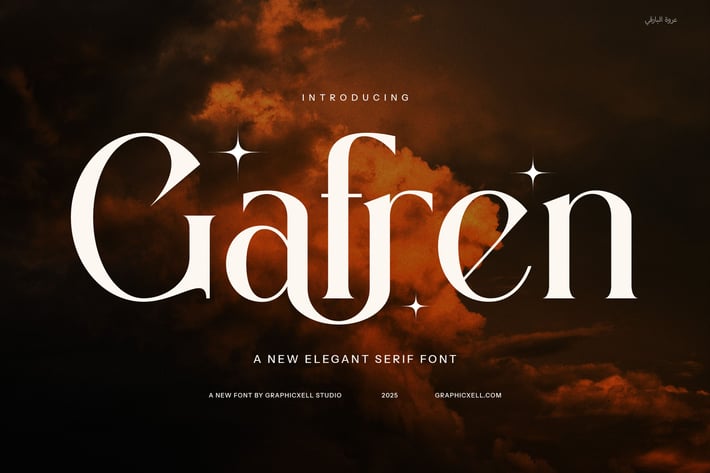
Gafren Elegant Serif Font
Gafren Elegant Serif Font is a sophisticated and modern typeface that combines timeless beauty with contemporary refinement. Designed with precision, this font boasts exquisite ligatures and unique alternate characters, allowing for endless creative possibilities. Its graceful curves and balanced proportions bring a touch of luxury to any design, making it an ideal choice for high-end branding, editorial layouts, and stylish digital or print projects.
Crafted for elegance and versatility, Gafren is perfect for logos, fashion labels, boutique packaging, and premium advertisements. The carefully designed letterforms offer a seamless blend of classic sophistication and modern aesthetics, making your typography stand out with effortless charm. Whether you’re designing a refined website header, an upscale magazine spread, or a captivating product label, Gafren delivers a polished and professional look.
The striking contrast between bold strokes and delicate serifs enhances readability while adding a sense of exclusivity. Its alternate characters and ligatures provide designers with creative freedom, allowing for custom typography that feels both unique and stylish. From luxury branding to elegant wedding invitations, this font adapts beautifully to a wide range of applications.
Gafren Elegant Serif Font is more than just a typeface—it’s an expression of artistry and sophistication. Elevate your projects with its timeless charm and refined details, ensuring a lasting impression in every design. Let Gafren bring elegance, character, and creativity to your next masterpiece.
Crafted for elegance and versatility, Gafren is perfect for logos, fashion labels, boutique packaging, and premium advertisements. The carefully designed letterforms offer a seamless blend of classic sophistication and modern aesthetics, making your typography stand out with effortless charm. Whether you’re designing a refined website header, an upscale magazine spread, or a captivating product label, Gafren delivers a polished and professional look.
The striking contrast between bold strokes and delicate serifs enhances readability while adding a sense of exclusivity. Its alternate characters and ligatures provide designers with creative freedom, allowing for custom typography that feels both unique and stylish. From luxury branding to elegant wedding invitations, this font adapts beautifully to a wide range of applications.
Gafren Elegant Serif Font is more than just a typeface—it’s an expression of artistry and sophistication. Elevate your projects with its timeless charm and refined details, ensuring a lasting impression in every design. Let Gafren bring elegance, character, and creativity to your next masterpiece.